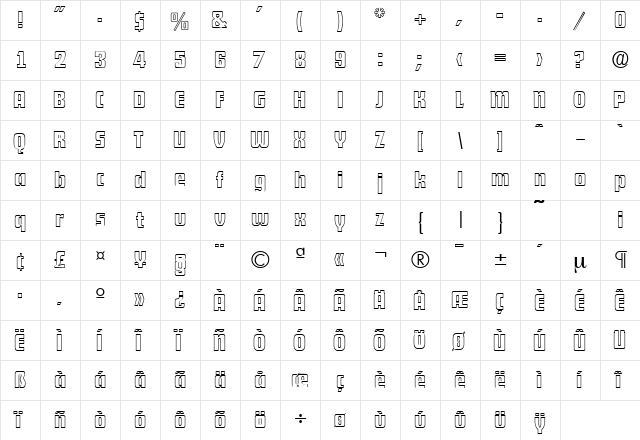
DekoDisplayOpen-Serial DB Regular
Design Context for DekoDisplayOpen-Serial DB Typeface
DekoDisplayOpen-Serial DB brings ornamental detail and strong personality to headlines and identities, where visual impact matters more than quiet functionality.
Font Pairing: Pair with a clean neutral sans-serif for body copy to let DekoDisplayOpen-Serial DB's character lead without overwhelming the composition.
Pro Tip: Use DekoDisplayOpen-Serial DB exclusively at display sizes — it was designed to be seen, not read at length. Let a neutral companion handle body copy.